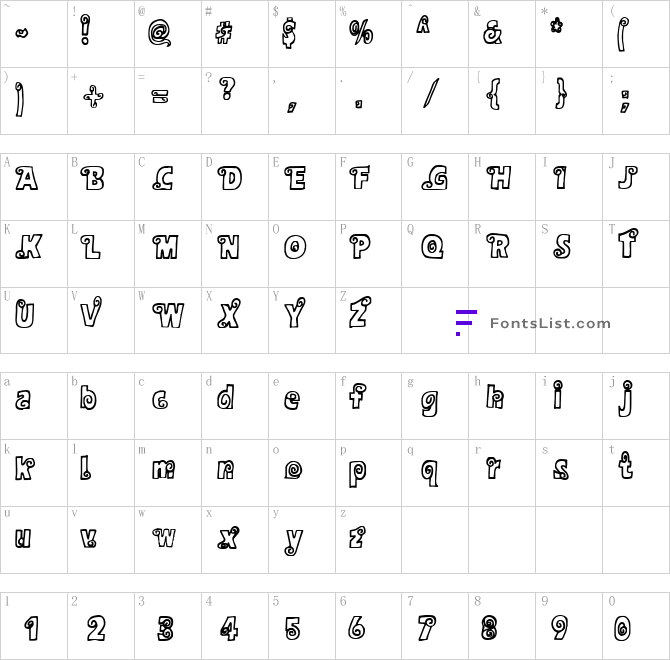
- Font Name:Alphasnail
Alphasnail.ttf is a very beautiful artistic font, Alphasnail.ttf is widely used in the design and printing of various books and pictures,Alphasnail.ttf has a strong visual impact,Alphasnail.ttf is a commonly used font in newspapers, magazines and books, and is used in posters, e-commerce Poster design, store design, logo design, font design and other fields.Alphasnail.